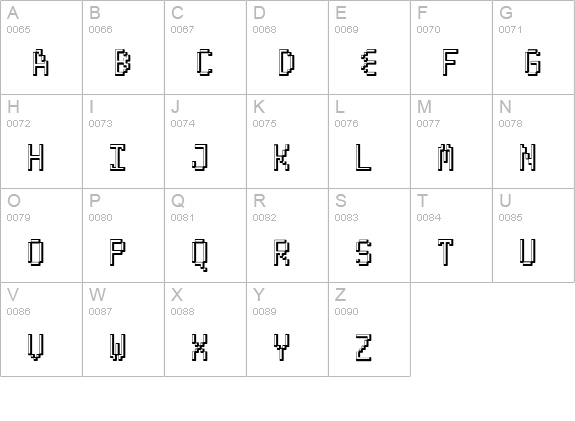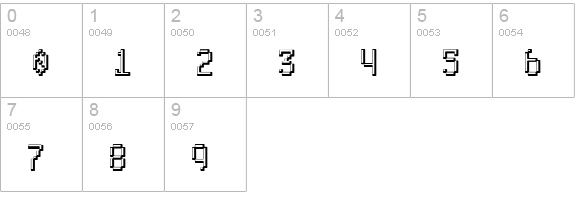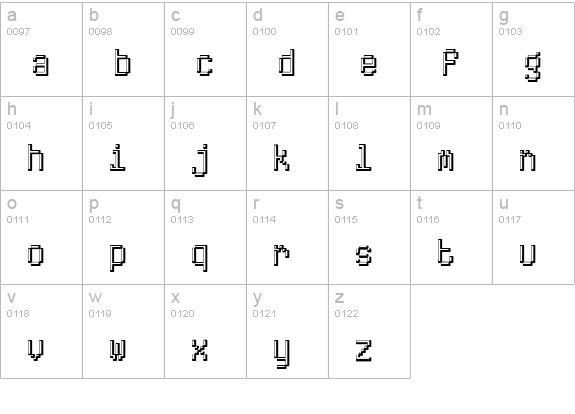
ABS9 Font Details
Introducing ABS9 font, a modern and versatile typeface that is sure to make your designs stand out. With its clean lines and sleek appearance, ABS9 is perfect for a wide range of projects. Whether you're creating a logo, designing a website, or working on a print campaign, this font has got you covered. What sets ABS9 apart is its unique combination of elegance and readability, making it suitable for both headlines and body text. The sharp edges and geometric shapes of this font give it a contemporary and sophisticated look that is sure to impress. The best part? ABS9 is completely free to download at FontsMarket.com. So why wait? Add this stylish font to your collection today and take your designs to the next level.